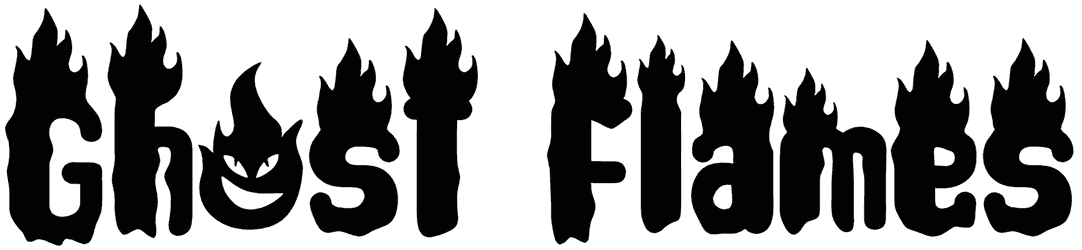
Ghost Flames Font
Here we come again with a Halloween font the same as the Ghost Flames that comes with flaming characters and brings a feeling of jauntiness, dread, excitement, or vitality.